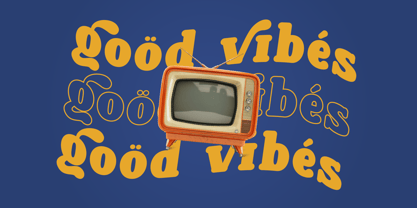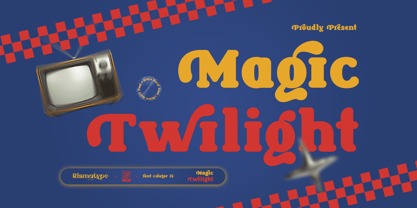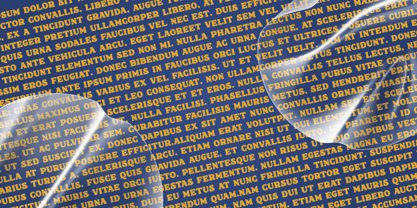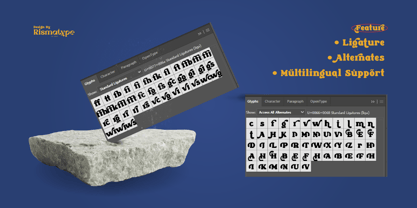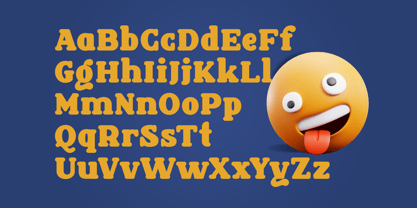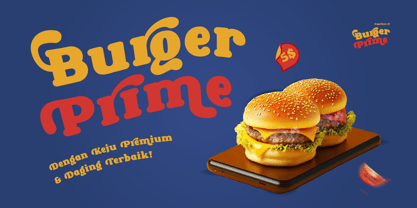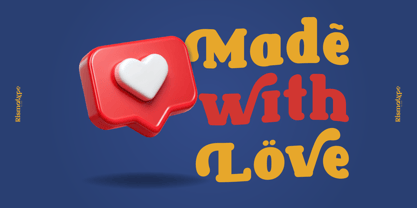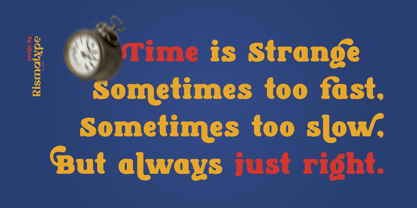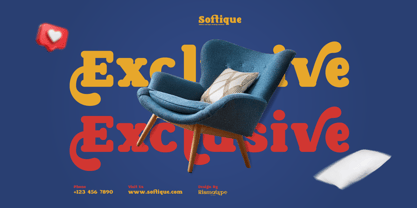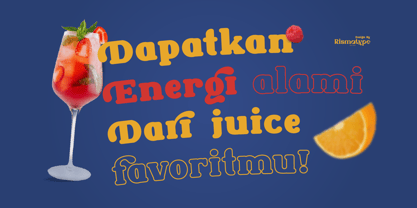
Magic Twilight
by Risma Type
The Magic Twilight Font Family was designed by Risma Mulyasari and published by Risma Type. Magic Twilight contains 2 styles and family package options.
✨ Magic Twilight ✨
Enchanting and Majestic Retro Serif Display Font
Magic Twilight is a serif display font designed to capture the essence of elegance and mystery. With its graceful curves and refined structure, this font is perfect for enhancing design projects that demand sophistication and charm, such as:
Branding & Logos: Create a memorable and magical brand identity.
Editorial & Magazines: Add an air of elegance and refinement to your layouts.
Invitations & Cards: Bring a touch of magic and luxury to your special occasions.
💎 Make a lasting impact with every letter of Magic Twilight.
Elevate your designs with a perfect blend of enchantment and sophistication that truly stands out!